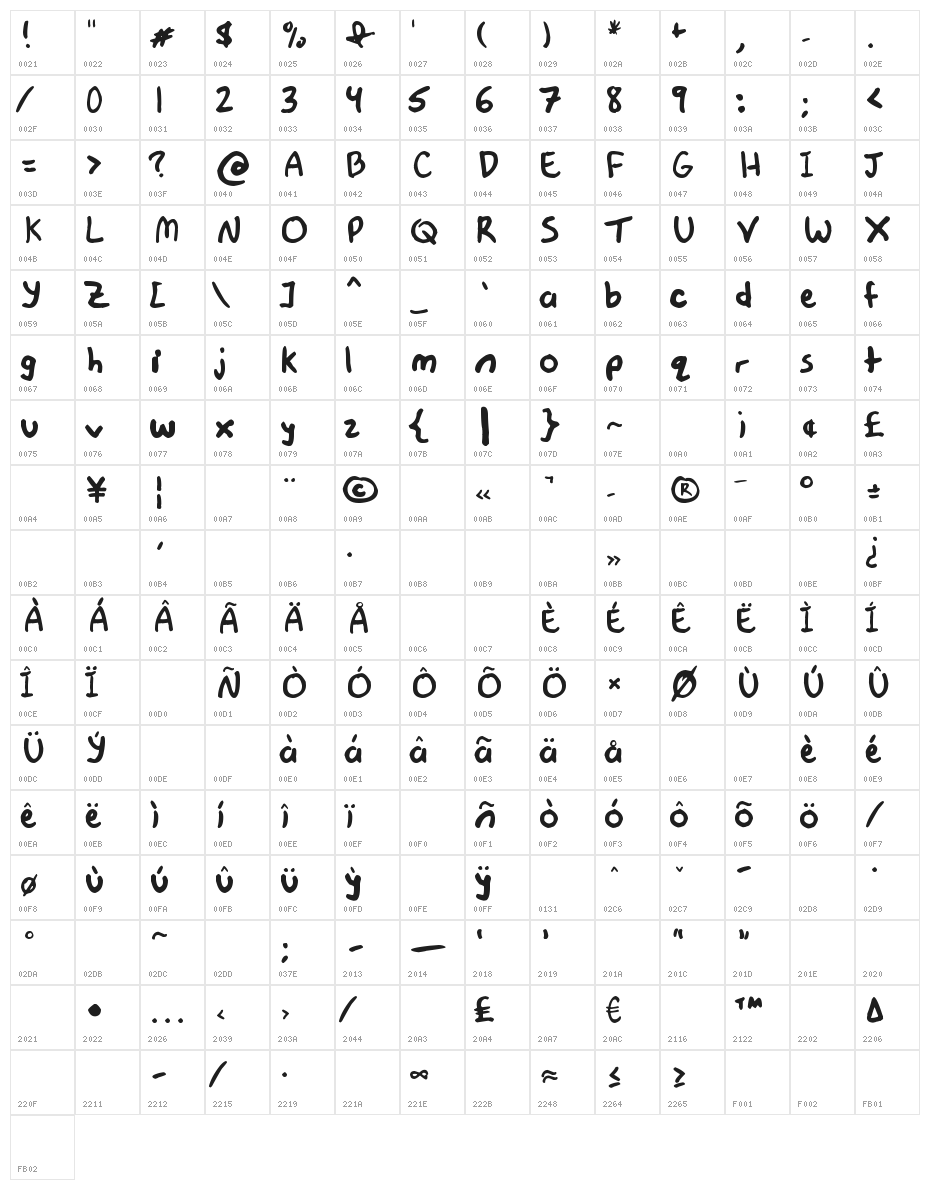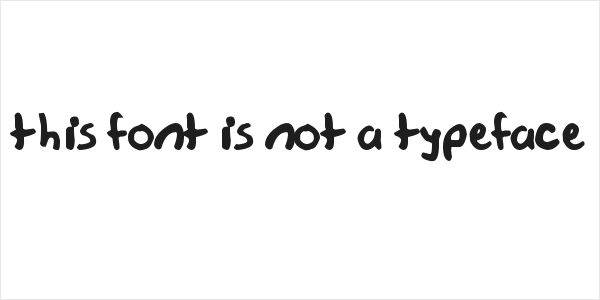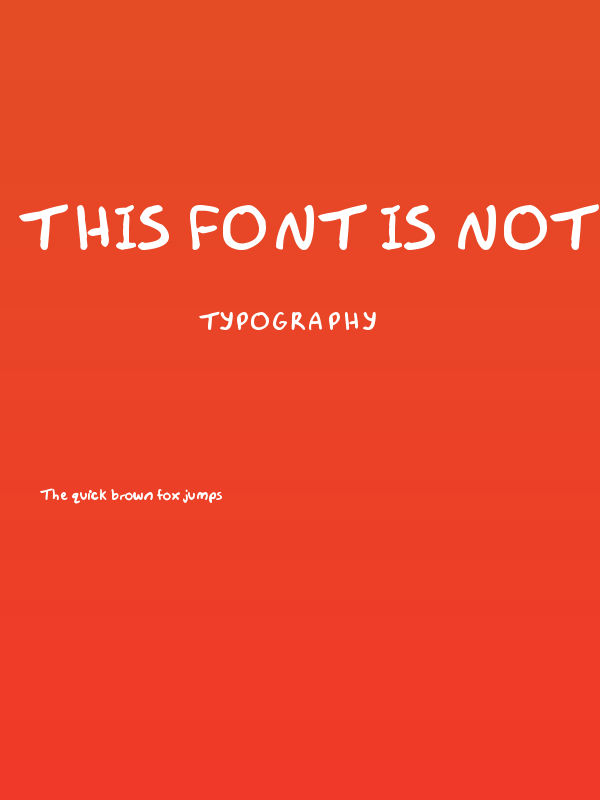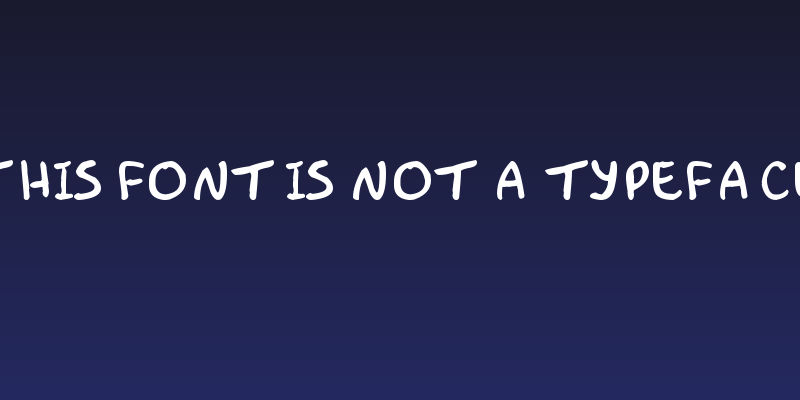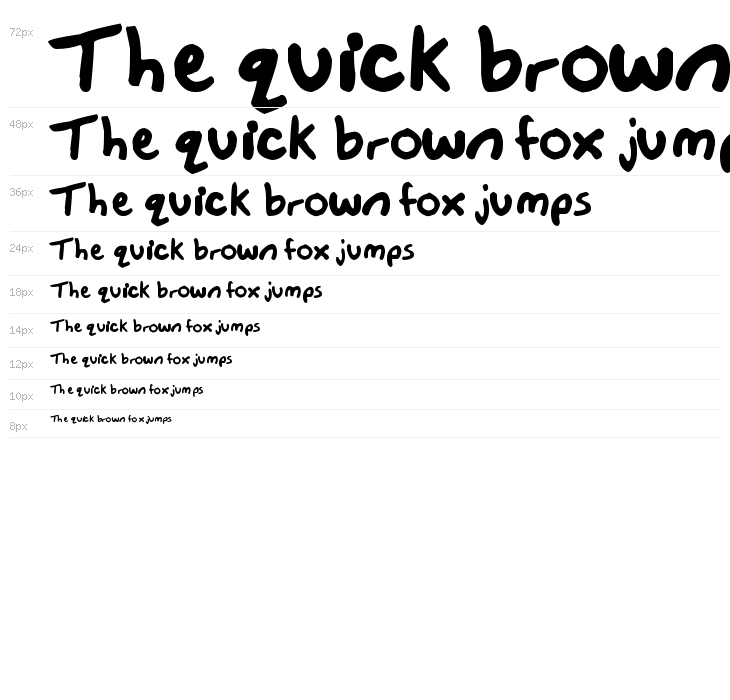
this font is not a typeface Font
this font is not a typeface Description
This font exhibits a playful and informal handwritten style, characterized by its uneven strokes and casual appearance. The letters are bold and slightly irregular, giving it a dynamic and energetic feel. The uppercase and lowercase letters maintain a consistent style, with rounded edges and varying stroke widths that add to its whimsical nature. The numerals and special characters follow the same playful design, making it suitable for creative and informal projects.
| Proposed Projects | Ideal for children's books, creative posters, casual invitations, and playful branding. |